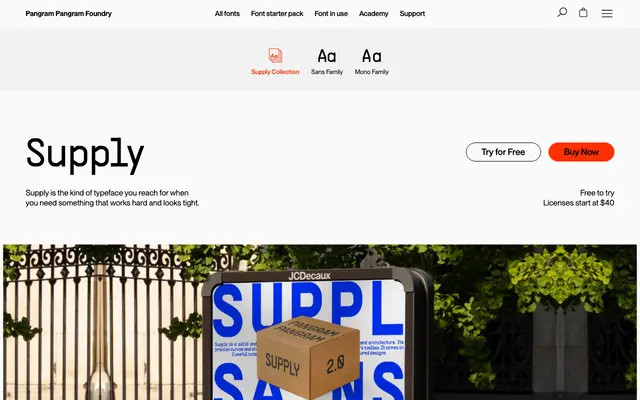
A geometric sans plus matching monospace by Mat Desjardins, drawn from industrial design and architecture for utilitarian, structured layouts.
A two-part system pairing a geometric sans with a monospace cut on the same skeleton, eight weights each from Thin to Black with a variable file per cut. Precise curves and sharp angles give it an industrial feel that suits technical brands, packaging, dashboards and code-adjacent work where you want the structure of a mono to live alongside text in the sans. A reliable workhorse rather than a flashy display face.
Pangram lists it under Geometric, Monospace, Sans Serif and Variable. A two-cut system with a Sans family and a matching Monospace family, sharing the same skeleton.